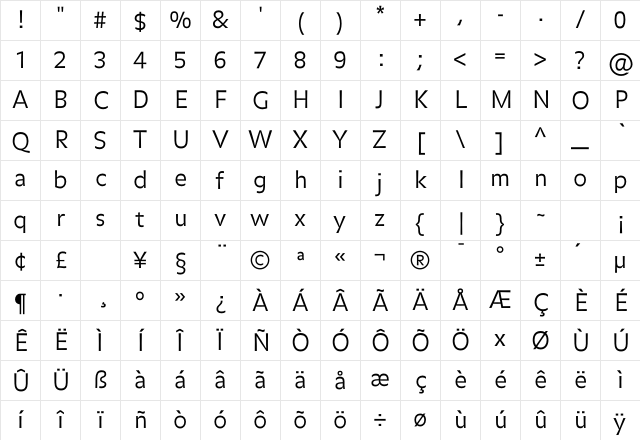
Balance Light
Balance Family
Design Context for Balance
Balance is a composed and adaptable typeface that performs quietly and consistently across a wide range of design contexts. Its slender proportions lend an understated elegance to any composition.